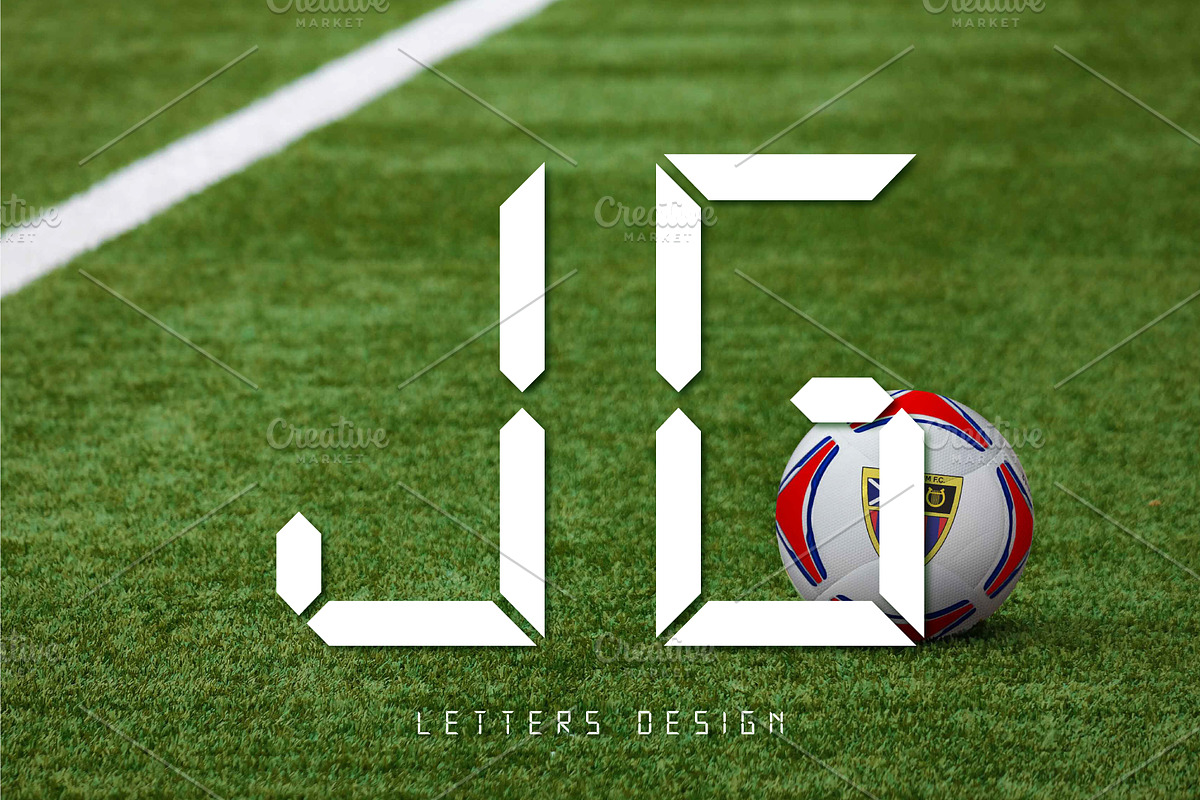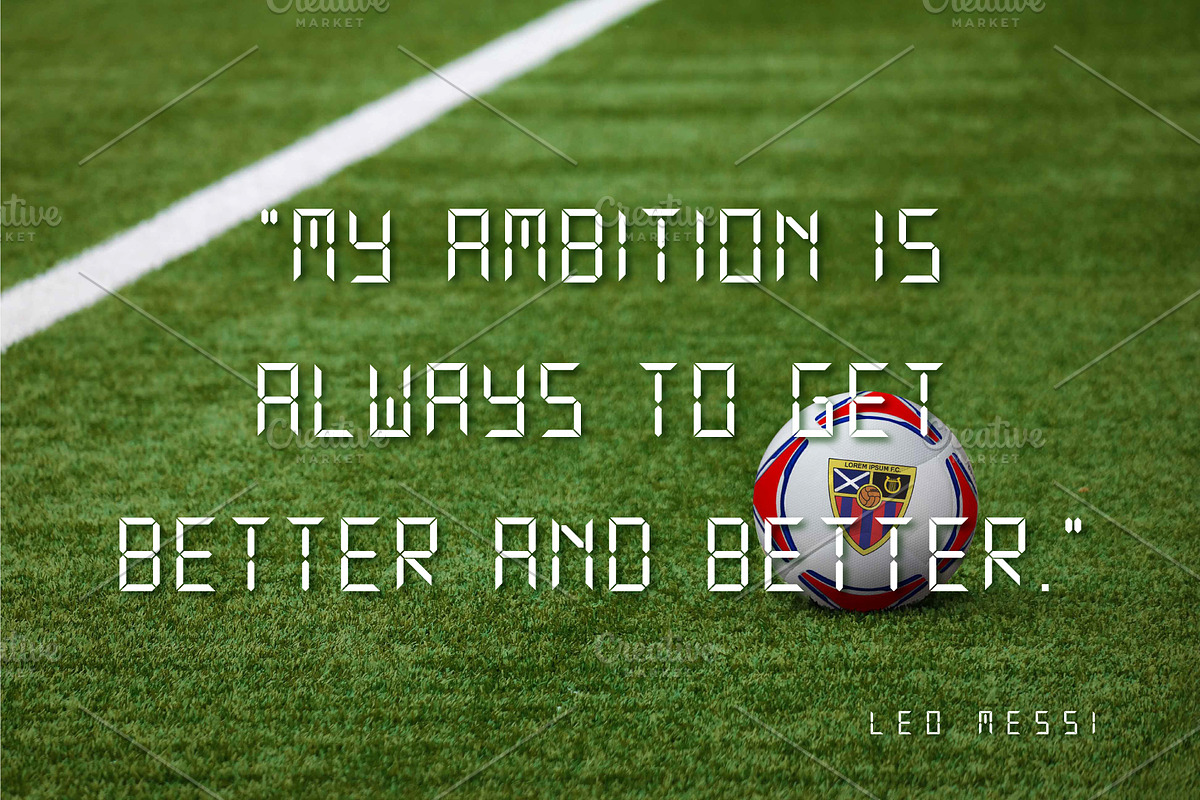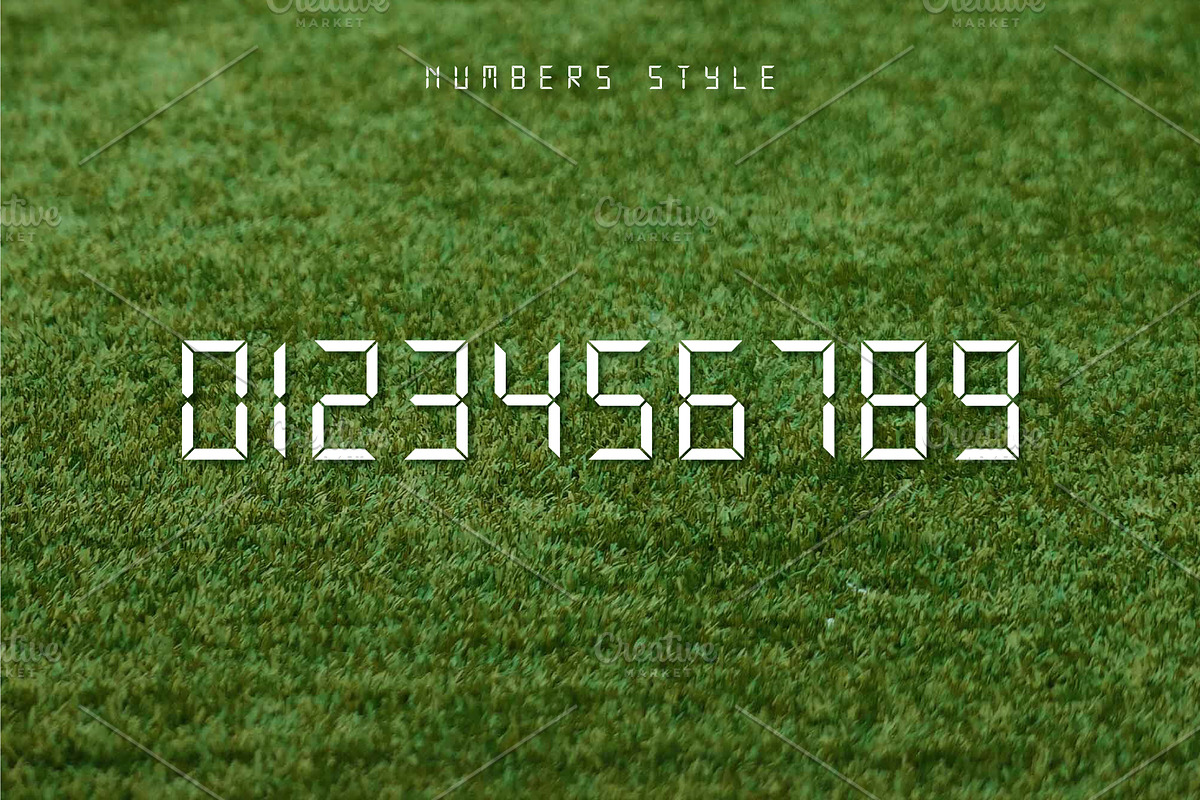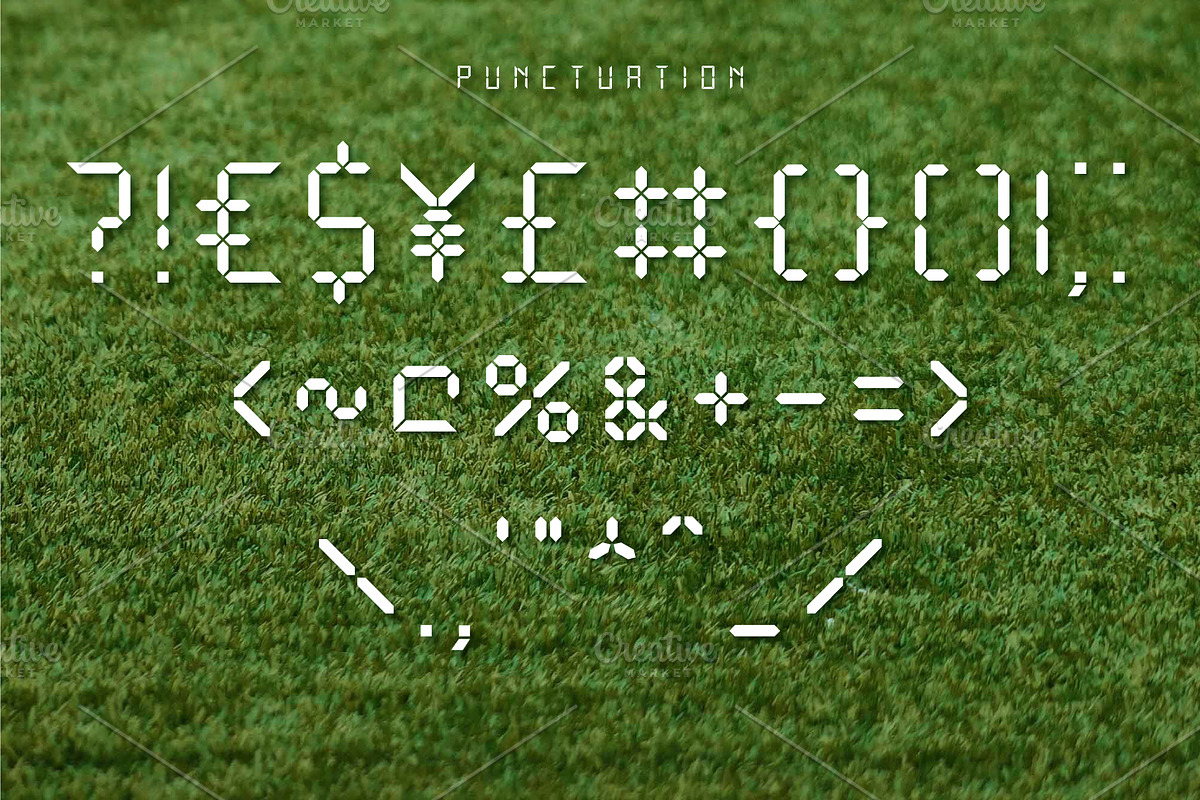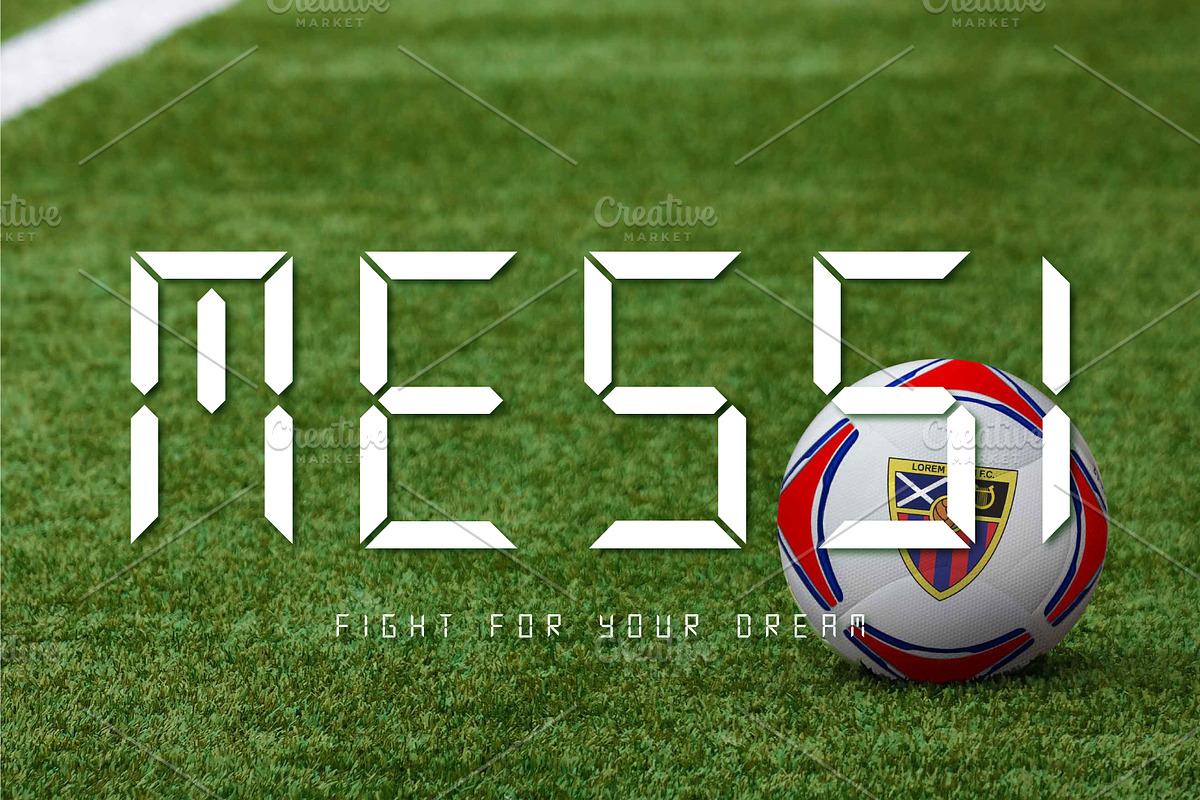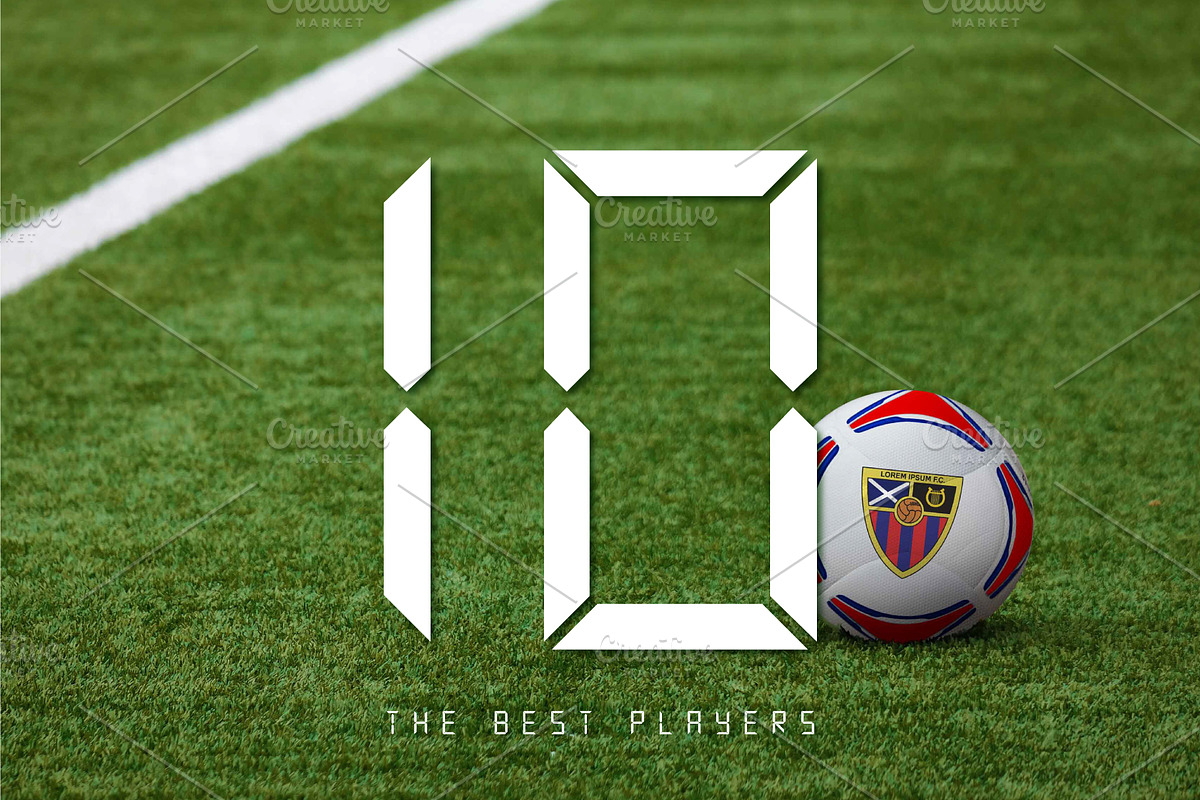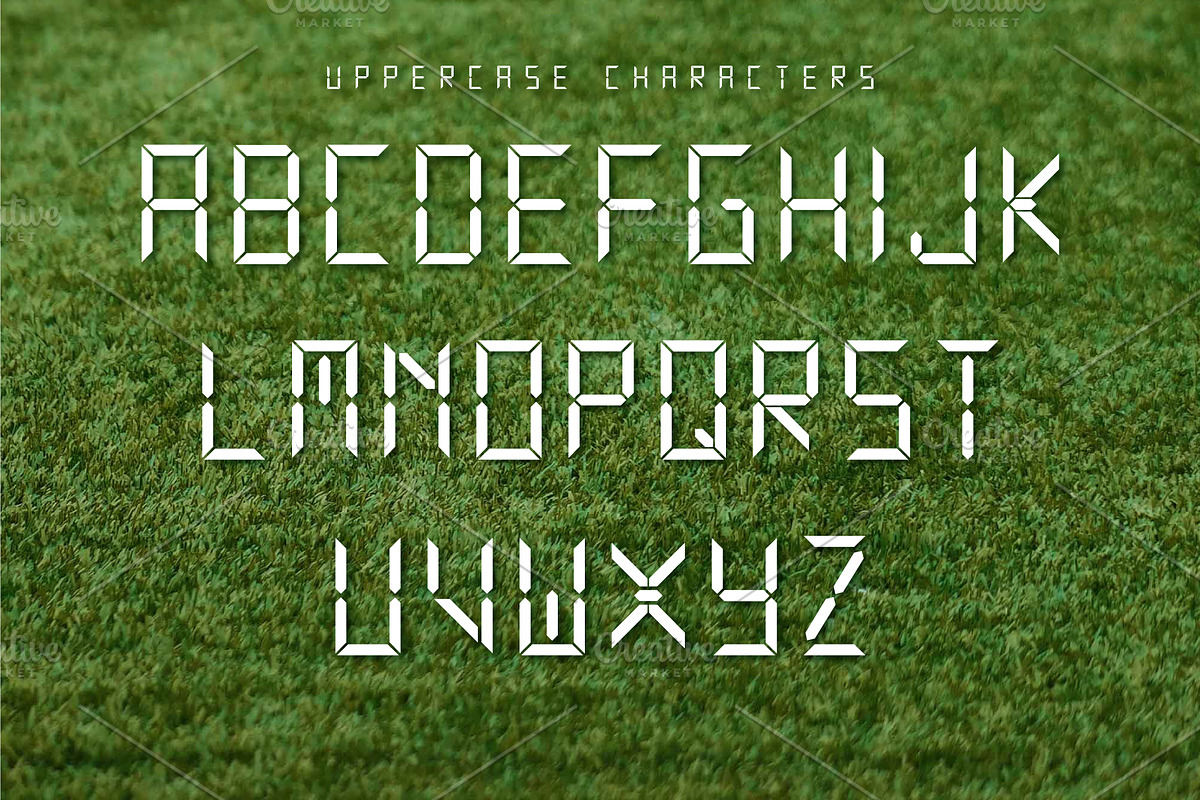
Electronic Sport Font
Introducing Electronic Sport Font.
Why Electronic Sport Font is worth a look
Electronic Sport Font by Nadezda fits naturally into Branding, posters, packaging, typography.